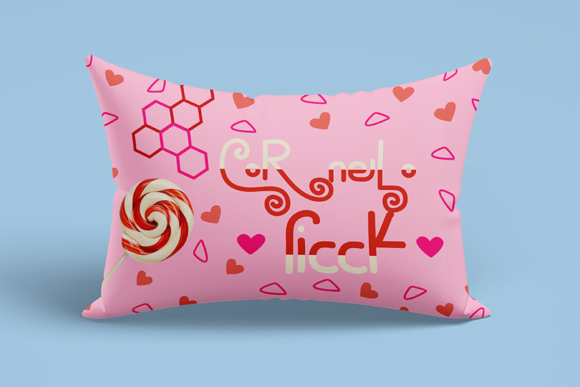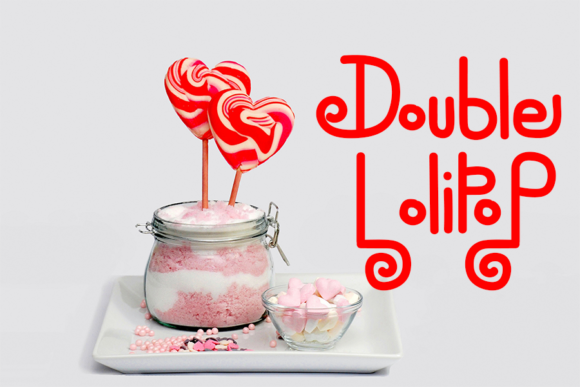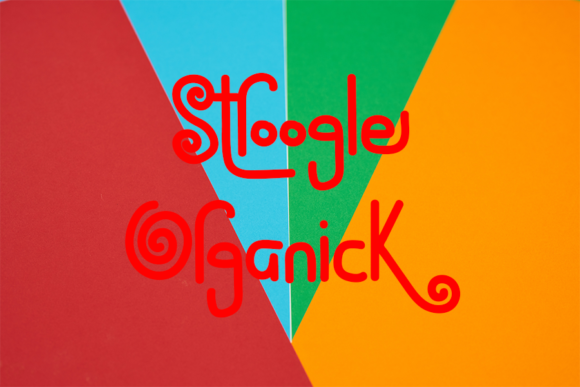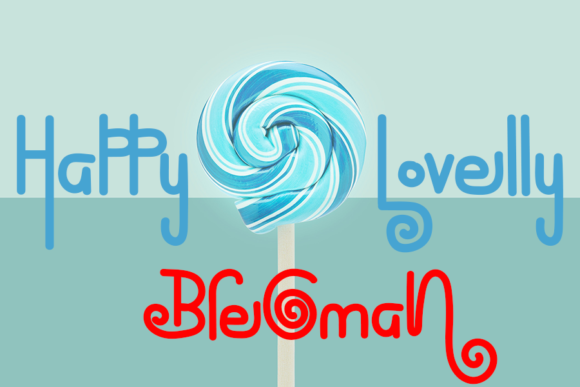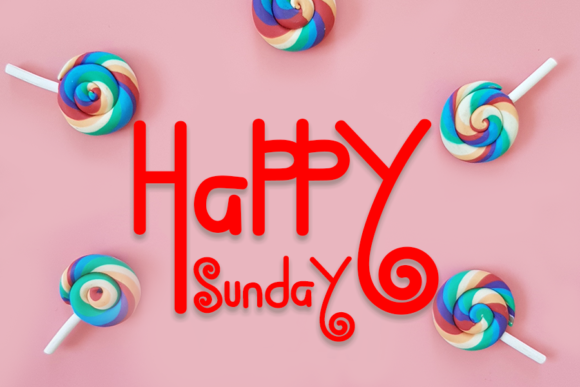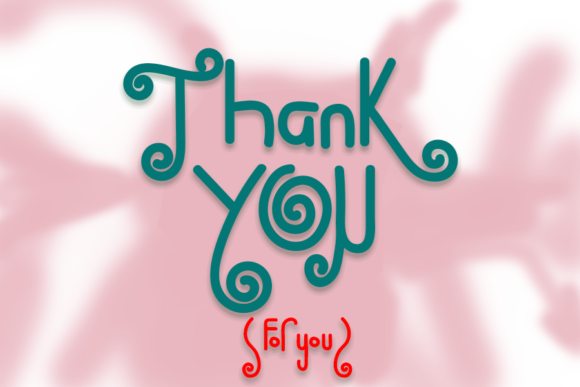
Introducing Conelly LolipoP Font: The Ultimate Expression of Fun and Quirkiness
In the world of typography, fonts play a crucial role in bringing creative ideas to life. For designers and crafters, finding the perfect font can be a daunting task. However, if you’re looking for a font that embodies fun, quirkiness, and authenticity, look no further than Conelly LollipoP. This enchanting handwritten font is designed to turn any creative idea into a true standout, making it a must-have for anyone looking to add a touch of personality to their projects.
The Story Behind Conelly LollipoP
Conelly LollipoP is more than just a font – it’s an expression of creativity and individuality. The brainchild of talented font designer Conelly, this font is a reflection of her passion for typography and her desire to create something truly unique. With Conelly LollipoP, you can add a dash of whimsy and playfulness to your designs, making it perfect for projects that require a bit of flair.
What Makes Conelly LollipoP Special?
So, what sets Conelly LollipoP apart from other fonts? Here are a few key features that make it a standout:
• Handwritten with love: Conelly LollipoP is a handwritten font, which means it has a personal and authentic feel to it. Each letter is carefully crafted to create a sense of warmth and approachability.
• Fun and quirky: This font is designed to bring a smile to people’s faces. Its playful and whimsical nature makes it perfect for projects that require a bit of humor and personality.
• Authentic and unique: Conelly LollipoP is a one-of-a-kind font that will set your designs apart from the rest. Its distinctive feel and look make it a great choice for designers and crafters who want to create something truly original.
Use Cases for Conelly LollipoP
Conelly LollipoP is a versatile font that can be used in a variety of projects, including:
• Digital and print designs: Whether you’re creating a logo, brochure, or social media graphic, Conelly LollipoP is a great choice.
• Crafting and DIY projects: Add a personal touch to your crafting and DIY projects, such as handmade cards, gift tags, and scrapbooking.
• Branding and packaging: Use Conelly LollipoP to create eye-catching branding and packaging that stands out on store shelves.
Tips for Using Conelly LollipoP
To get the most out of Conelly LollipoP, here are a few tips to keep in mind:
• Experiment with sizes and colors: Play around with different sizes and colors to create visual interest and hierarchy.
• Mix and match with other fonts: Combine Conelly LollipoP with other fonts to create a unique and interesting contrast.
• Use it sparingly: While Conelly LollipoP is a fun and playful font, it’s best used sparingly to avoid overwhelming the design.
In conclusion, Conelly LollipoP is a one-of-a-kind font that embodies fun, quirkiness, and authenticity. Its handwritten nature, playful feel, and unique look make it a must-have for designers and crafters who want to add a touch of personality to their projects. Whether you’re creating digital designs, crafting and DIY projects, or branding and packaging, Conelly LollipoP is the perfect choice. So why not give it a try and see how it can bring your creative ideas to life?